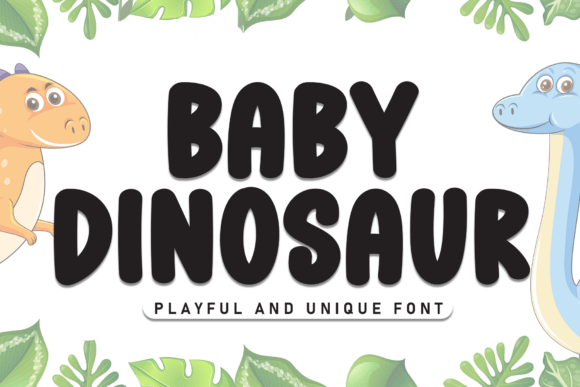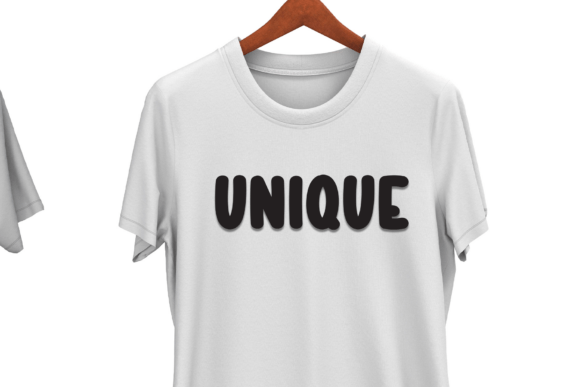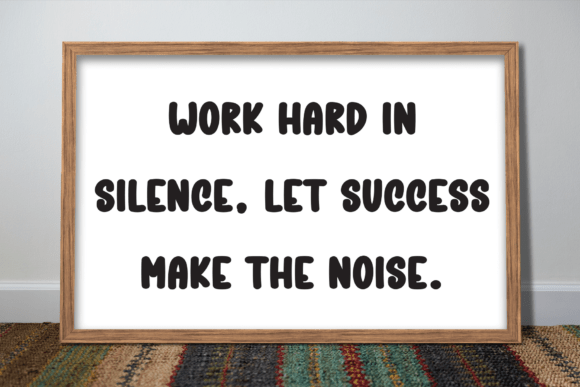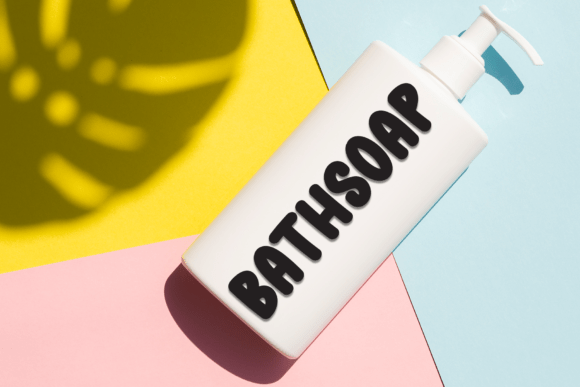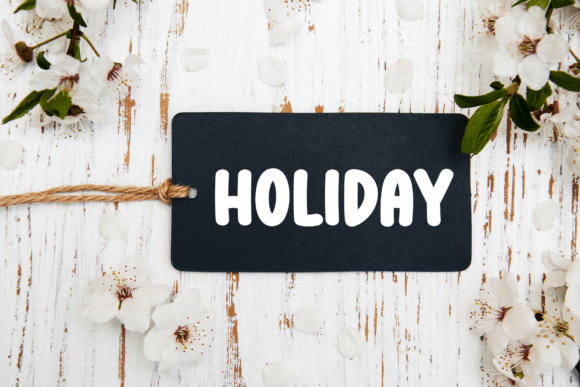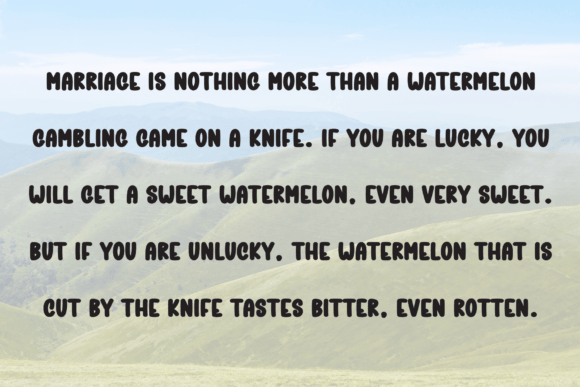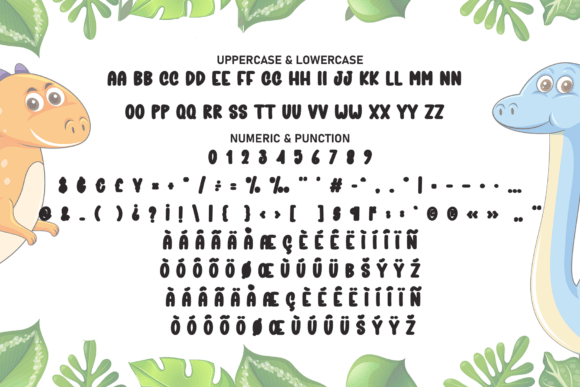
The Perfect Match for Playful Projects: Baby Dinosaur Font
Who hasn’t had one of those moments where you’re brainstorming ideas for a new project, and suddenly a burst of creativity hits you? The excitement of bringing a fresh concept to life is exhilarating, and the right font can be the key to unlocking that perfect visual identity. For designers seeking to infuse their work with a modern, laid-back vibe, Baby Dinosaur Font is the perfect companion.
Baby Dinosaur Font is a versatile display font that effortlessly balances clarity and approachability, making it an ideal choice for headlines, posters, packaging, and branding. Its clean lines and friendly letterforms bring a sense of playfulness to any project, without overwhelming the message. As a valuable addition to any designer’s toolkit, Baby Dinosaur Font is a game-changer for those seeking to add a touch of personality to their work.
Baby Dinosaur Font Key Features
- Unique Characteristics: The Baby Dinosaur Font features a playful and whimsical design, with rounded shapes and a childlike feel, perfect for use in children’s books, educational materials, and other applications where a friendly and approachable tone is desired.
Baby Dinosaur Font Review
I recently had the chance to work with the Baby Dinosaur Font, and I must say it’s a unique addition to any project. ✨ Here are some of its strengths:
- Playful and fun, perfect for children’s books, nursery decorations, or any project that needs a lighthearted tone.
- Well-suited for digital applications, such as social media graphics, website headers, or even mobile app interfaces.
- The font’s irregularities and playful characteristics can add a touch of personality to a design.
- The font may not be the best choice for formal or professional projects, as it can come across as immature.
- Its irregularities can sometimes make it difficult to read, especially in smaller sizes.
- The font may not be available in as many weights or styles as more traditional fonts.
Overall, I think the Baby Dinosaur Font is a fun and creative option for the right project. While it may not be suitable for every design task, it’s a great choice when you need to add a playful touch.
The “Baby Dinosaur Font” is ideal for creating playful and whimsical designs, such as:
- Fun and educational materials for kids.
- Branding for children’s products or services.
Alternatives to “Baby Dinosaur Font”
Playfair Display is an elegant, high-end serif font. It’s perfect for creating luxurious and sophisticated designs. It has a more refined look compared to Baby Dinosaur Font, making it suitable for formal invitations, weddings, and high-end branding.
Comparison: Playfair Display is more formal and elegant, whereas Baby Dinosaur Font is playful and casual.
Great Vibes is a modern, elegant script font. It’s ideal for creating a sense of warmth and friendliness in designs. It’s more suitable for casual designs, such as food labels, event invitations, and social media graphics.